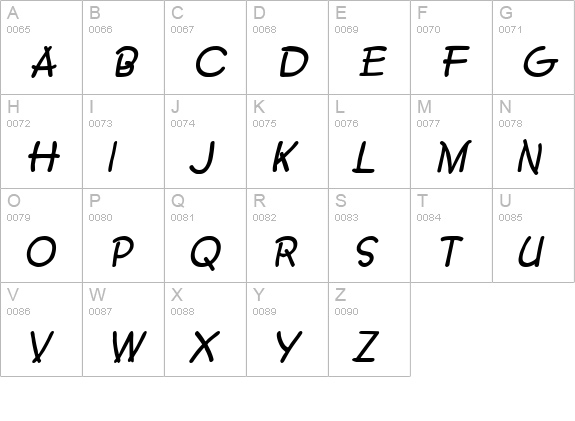
Crayon Bold Italic Font Details
Crayon Bold Italic is a strong, high-contrast, italic variant in the Crayon typeface family \xE2\x80\x94 well suited to headlines, attention-grabbing titles, and strong calls-to-action.
Introducing Crayon Bold Italic font, a playful and dynamic typeface that adds a touch of creativity to any design project. Its bold yet slanted strokes give a unique and artistic flair to your text, making it perfect for eye-catching headlines, posters, and branding materials. This font is a wonderful choice for projects that require a fun and energetic look, as it captures the essence of hand-drawn crayon letters with a modern twist. Whether you're designing for children's content, art-related materials, or simply want to inject some personality into your work, Crayon Bold Italic font is sure to make a statement. Best of all, this font is available for free download at FontsMarket.com, allowing you to unleash your creativity without breaking the bank. Don't miss out on the opportunity to add this charming and expressive typeface to your font library today!